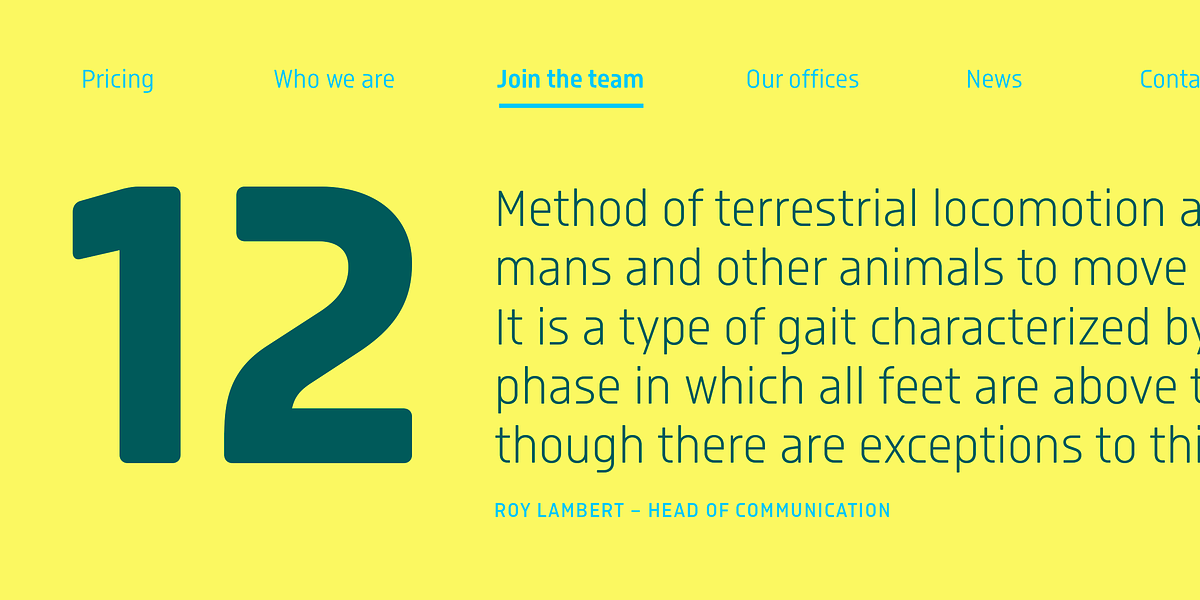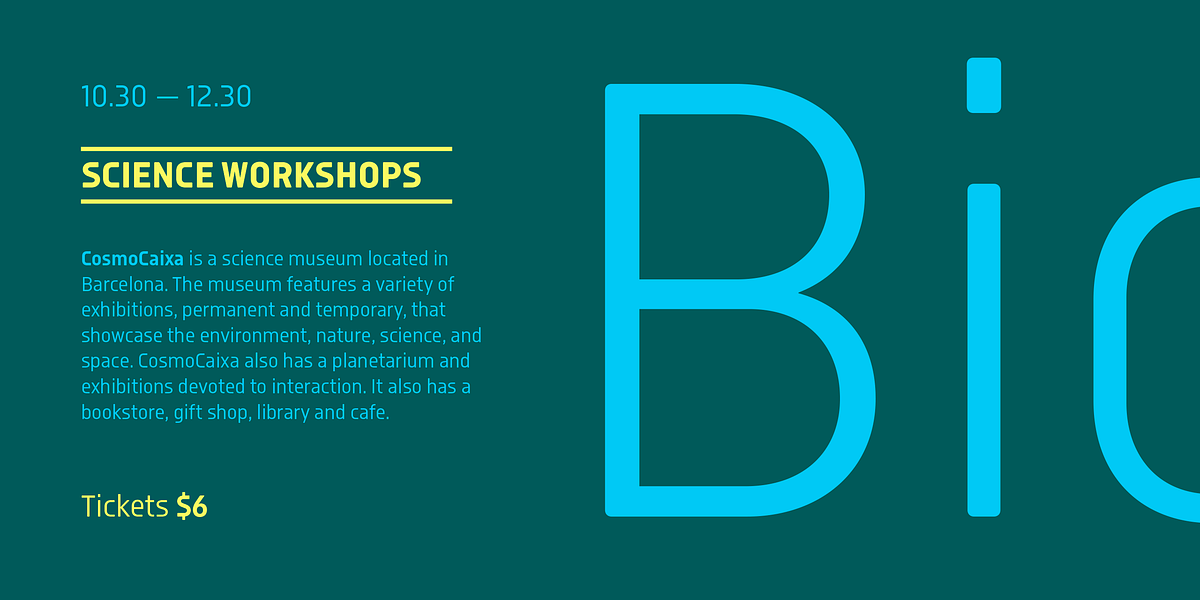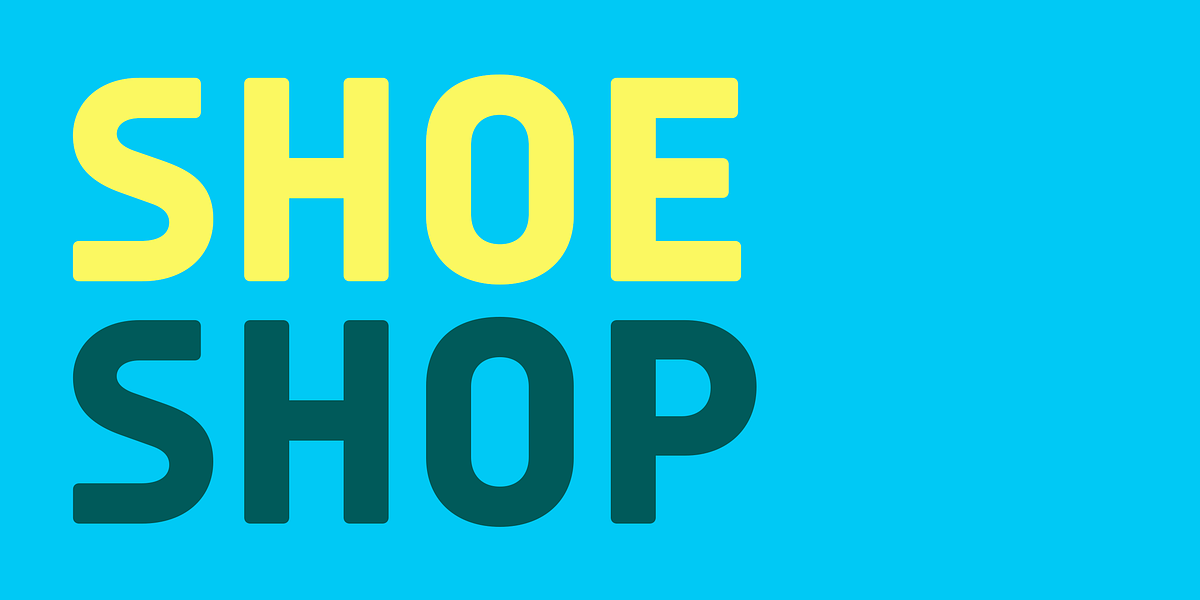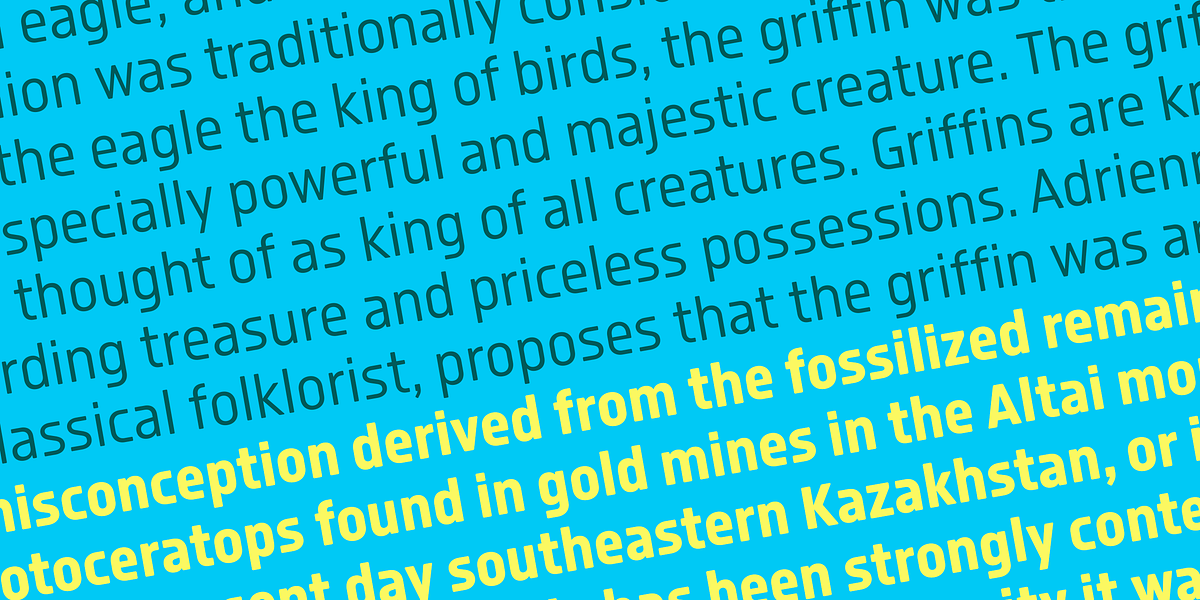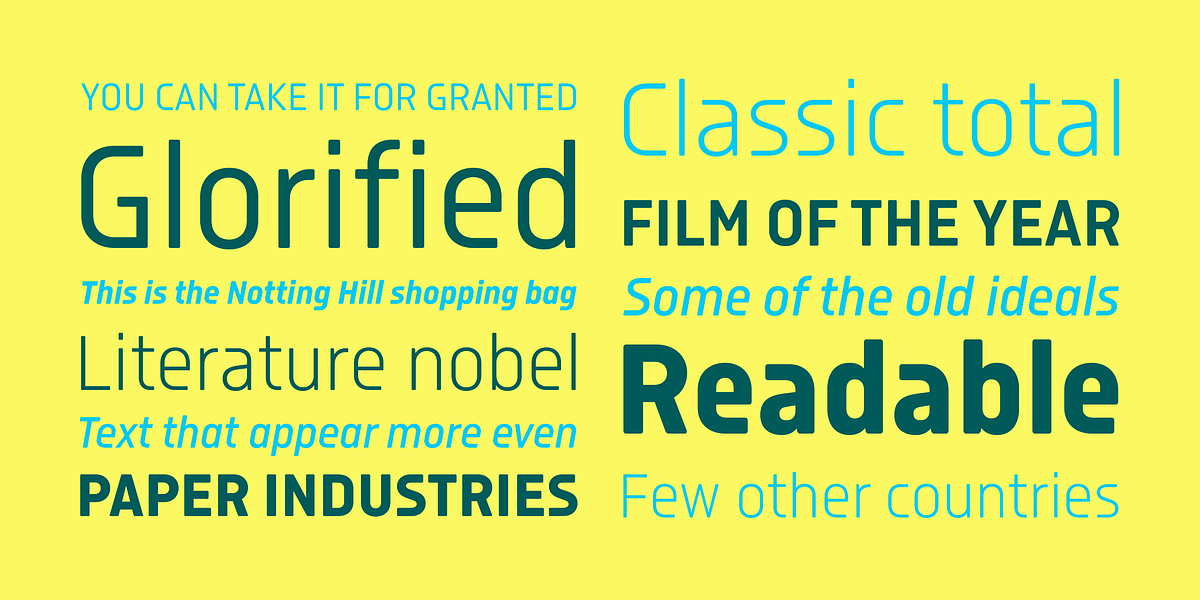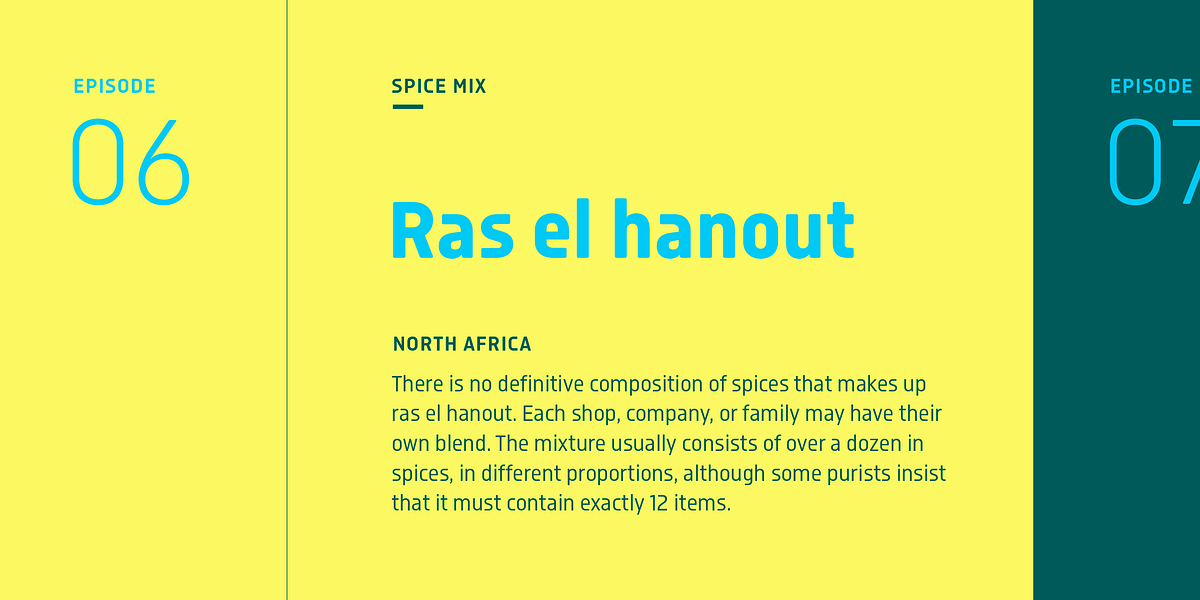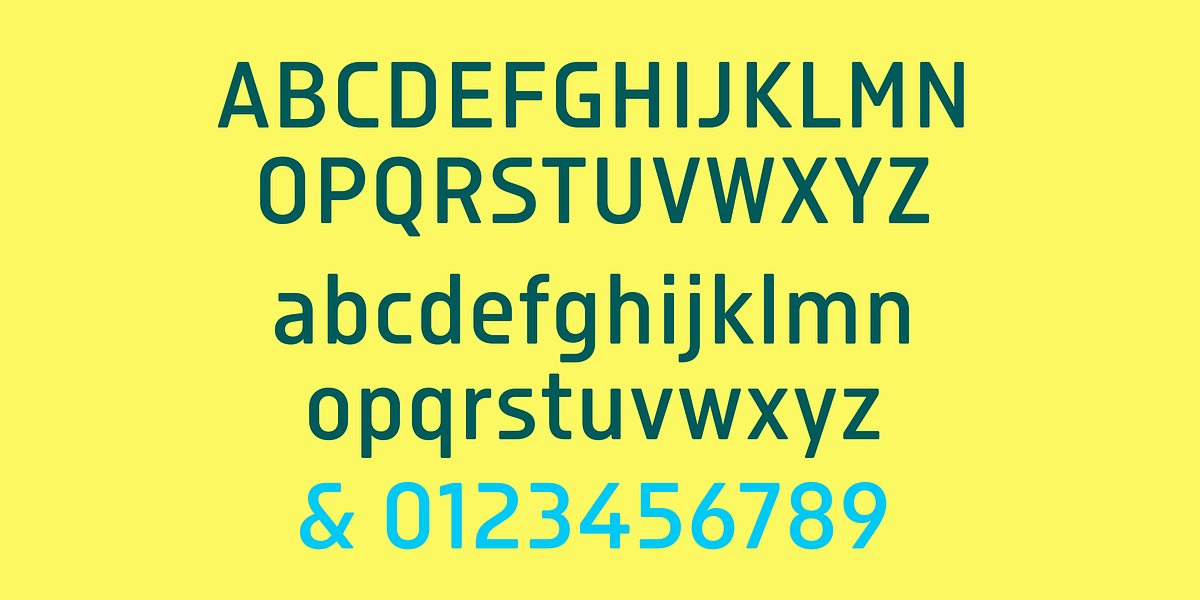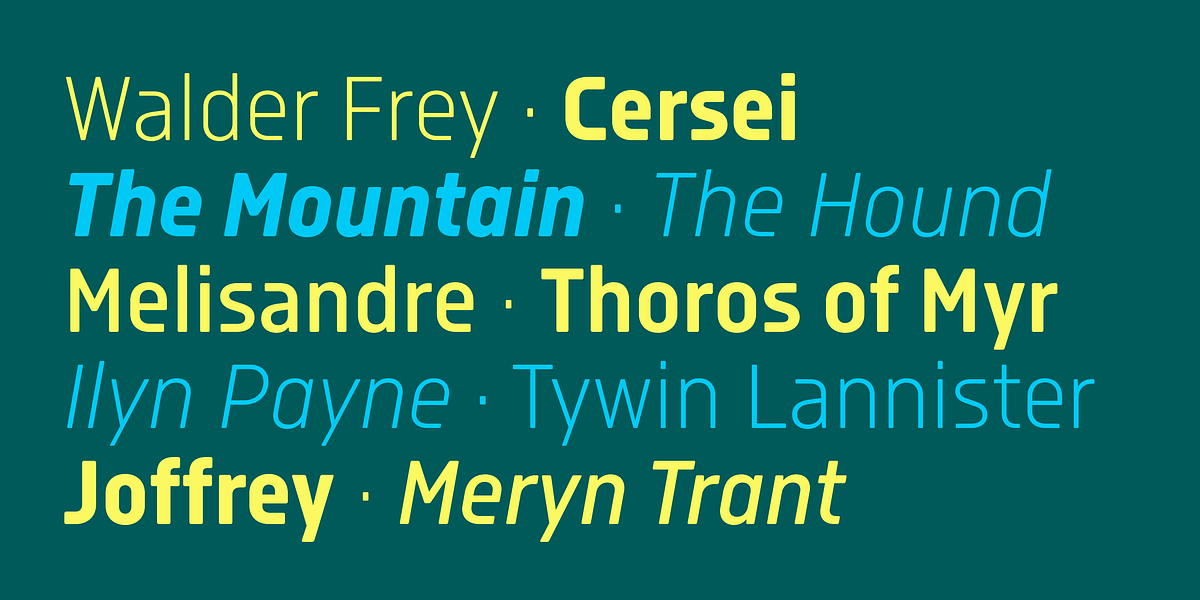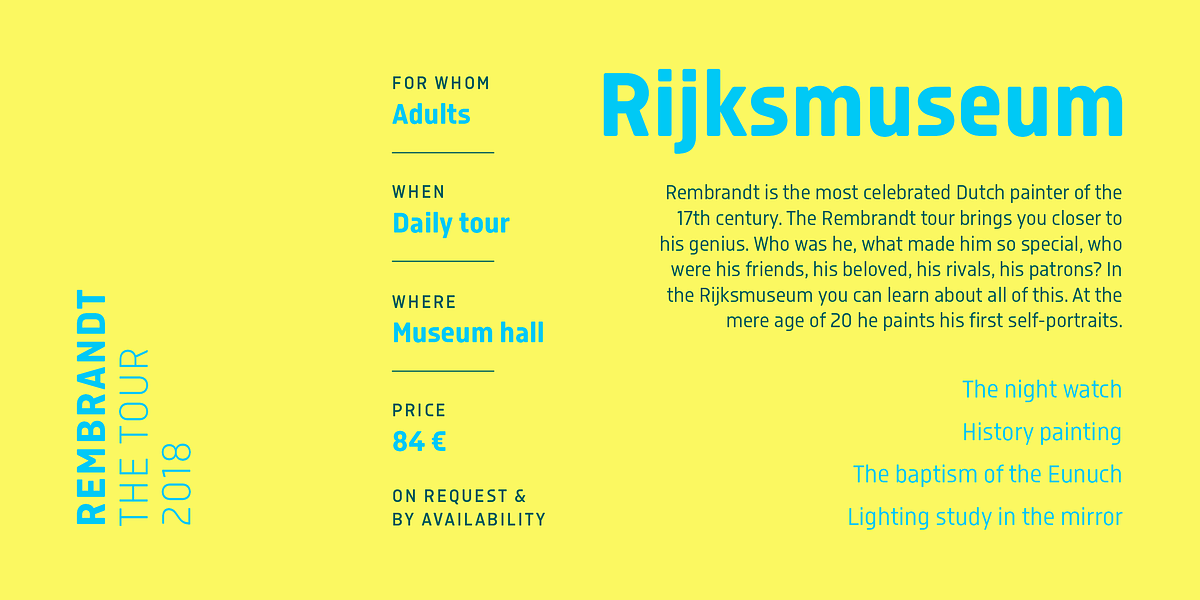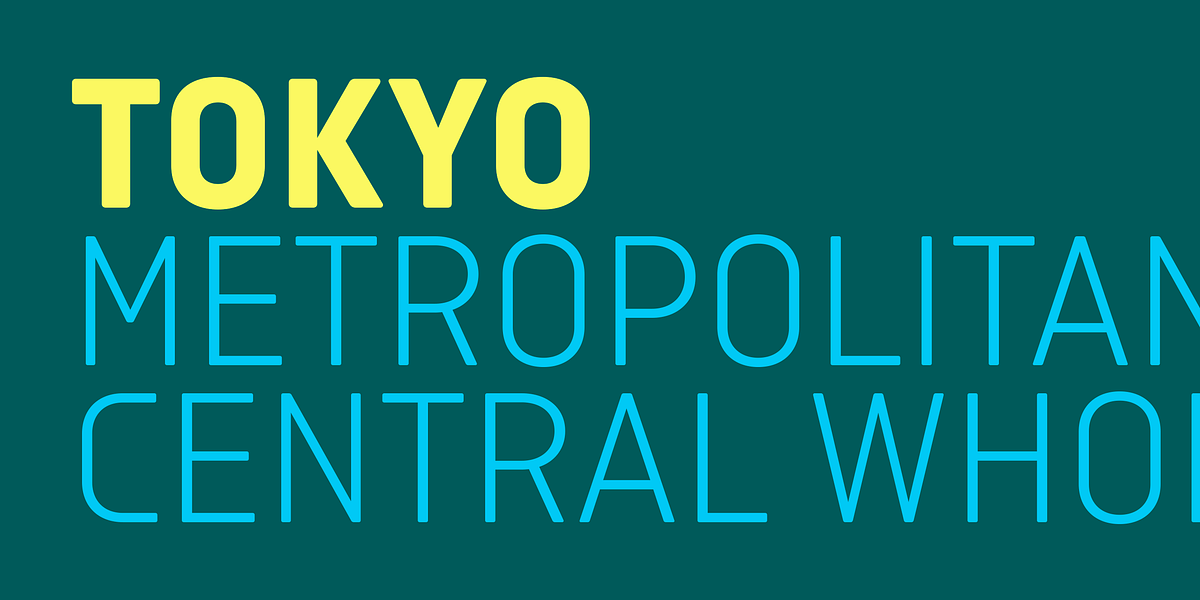
Isotonic
Isotonic is a geometric sans-serif font designed to be versatile. While not strictly a text font, it performs well in body sizes and on screens due to its soft corners which lend it a charming and approachable feel. The designers suggest Isotonic is suitable for use in contexts related to sports, science, technology, and the economy.